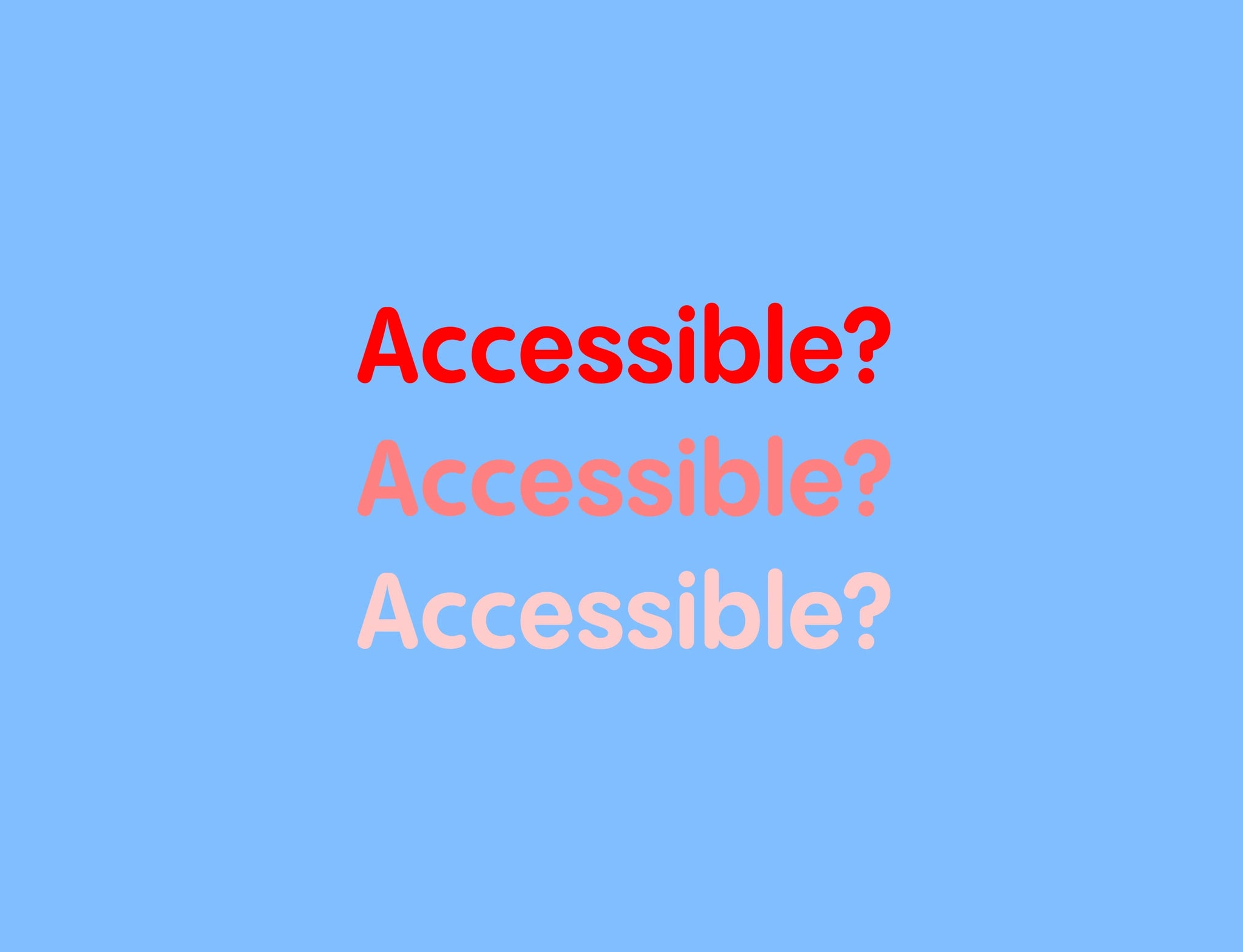
When designers talk about type, these two words often get used interchangeably, but they’re not the same thing. Readability is about ease of reading at speed. Accessibility is about whether a wider range of people can read it at all. One is about flow, the other is about access.
The readability of a font begins with its design. The micro-details of letterforms and spacing influence how easily we recognise and process text. Open counters, generous x-heights, balanced stroke contrast, and clear differentiation between similar characters (such as I, l and 1) all help improve legibility and reduce visual effort.
But readability doesn’t depend on the typeface alone. The way a font is set plays an equally important role. Line length, leading, justification, and hyphenation all affect how comfortably text can be read over longer passages. Letterforms that are spaced too tightly can feel cramped, while overly loose settings can disrupt the rhythm of reading. Readability is ultimately the result of both good type design and thoughtful typography working together to reduce friction in continuous reading.
On a type design level, this means considering:
Letterform clarity, spacing, x-height, counter openness, weight balance, contrast, character differentiation, harmony and balance of between inner and outer space of the letters, between letter, between words.
On a typesetting level, this means considering:
Font choice depending on the contest of use, size, leading, line length, justification, column width, size. This is what the designer using the font controls. Readability emerges from both.
Accessibility instead expands the usage of fonts, asking whether someone with low vision, dyslexia, colour blindness, or a screen reader can engage with the content at all. This is where contrast ratios, font weight flexibility, and responsive scaling come into play. Generally speaking, the neutrality of a font’s design is a strength in terms of accessibility, as overly expressive display fonts might be readable in ideal conditions but fail when resized or viewed on low-quality screens. Like with readability, accessibility is also affected by how fonts are applied. Semantic structure, proper use of headings, and compatibility with assistive tech matter as much as the letterforms themselves. In this sense, accessibility is less about the direct design of its letterforms and more about system design.
It’s also worth noting that research into accessibility and typography is still evolving. While there is broad agreement on many best practices, questions around how specific typeface characteristics affect readers with particular conditions, including dyslexia and other reading difficulties, remain the subject of ongoing study and debate.
The difference, then, is intent and scope. A typeface can be highly readable yet still inaccessible if it depends on fine visual distinctions or low contrast. Conversely, an accessible type system might feel slightly less elegant in ideal conditions, but it holds up across environments, devices, and abilities. Readable and accessible design sits at the overlap: where readability supports ease, and accessibility guarantees inclusion. For creatives – type designers and graphic designers alike – the challenge is not choosing one over the other, but understanding how decisions in spacing, form, and structure affect the bigger picture and the real-world use of their fonts.